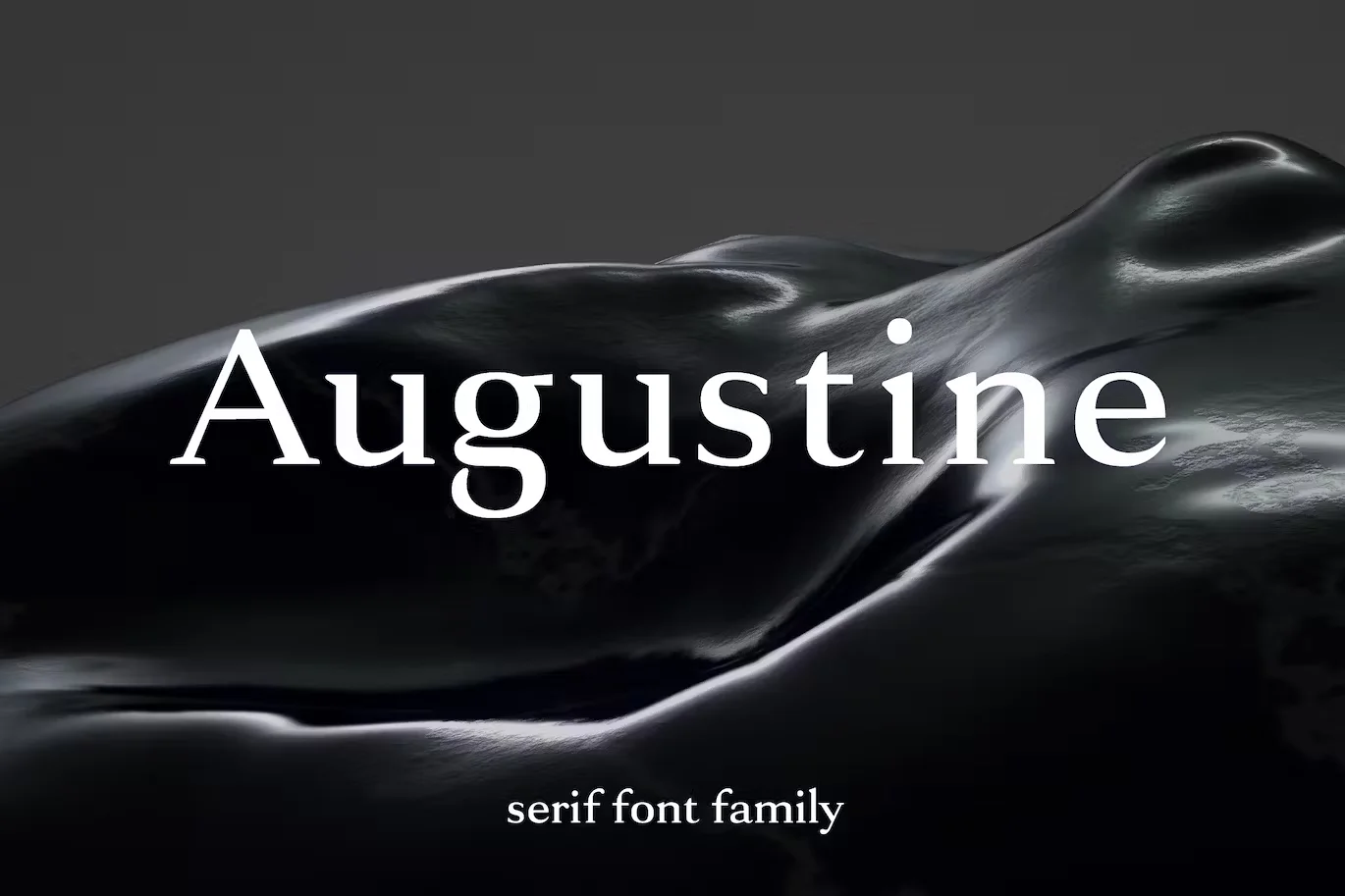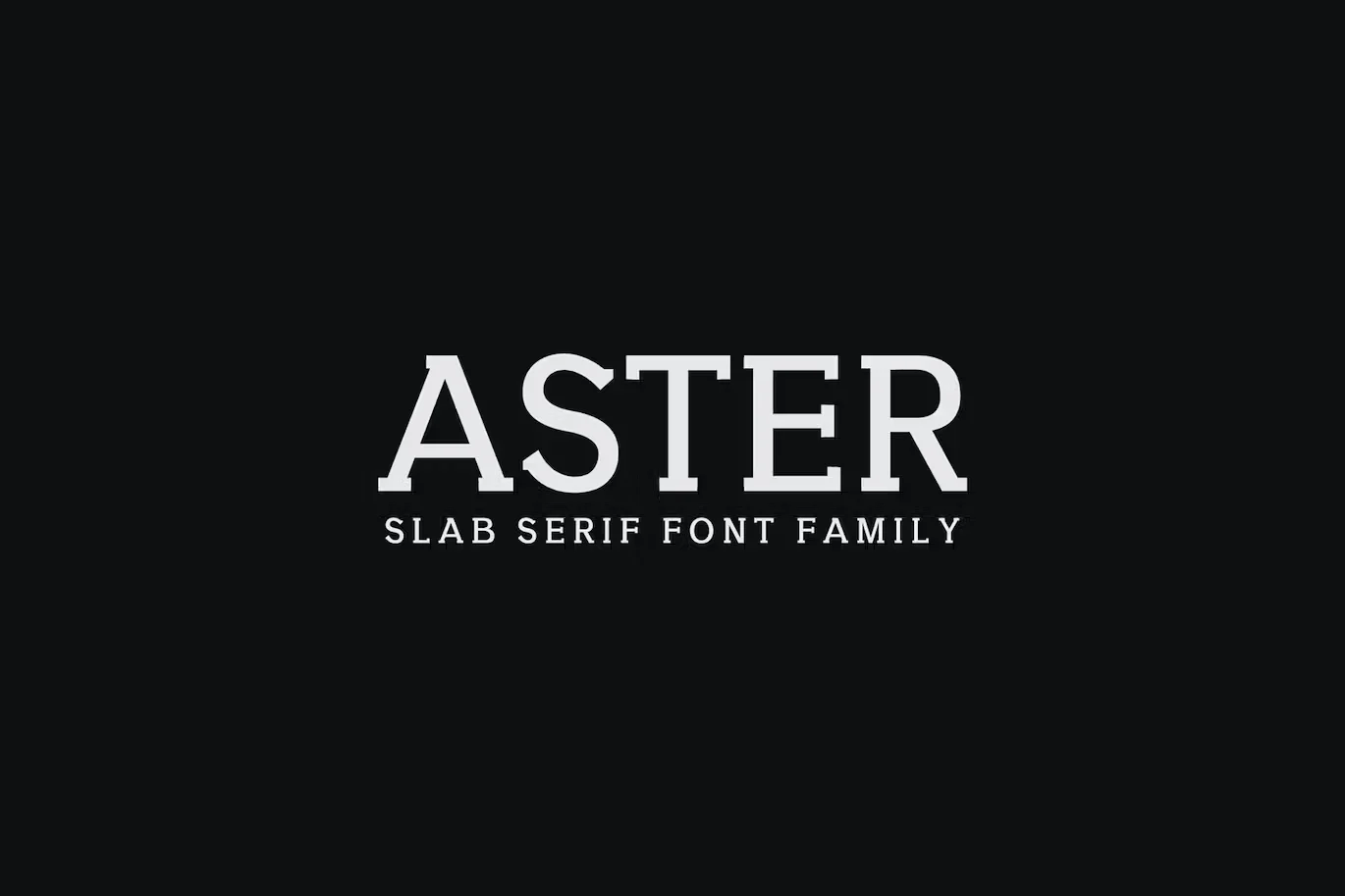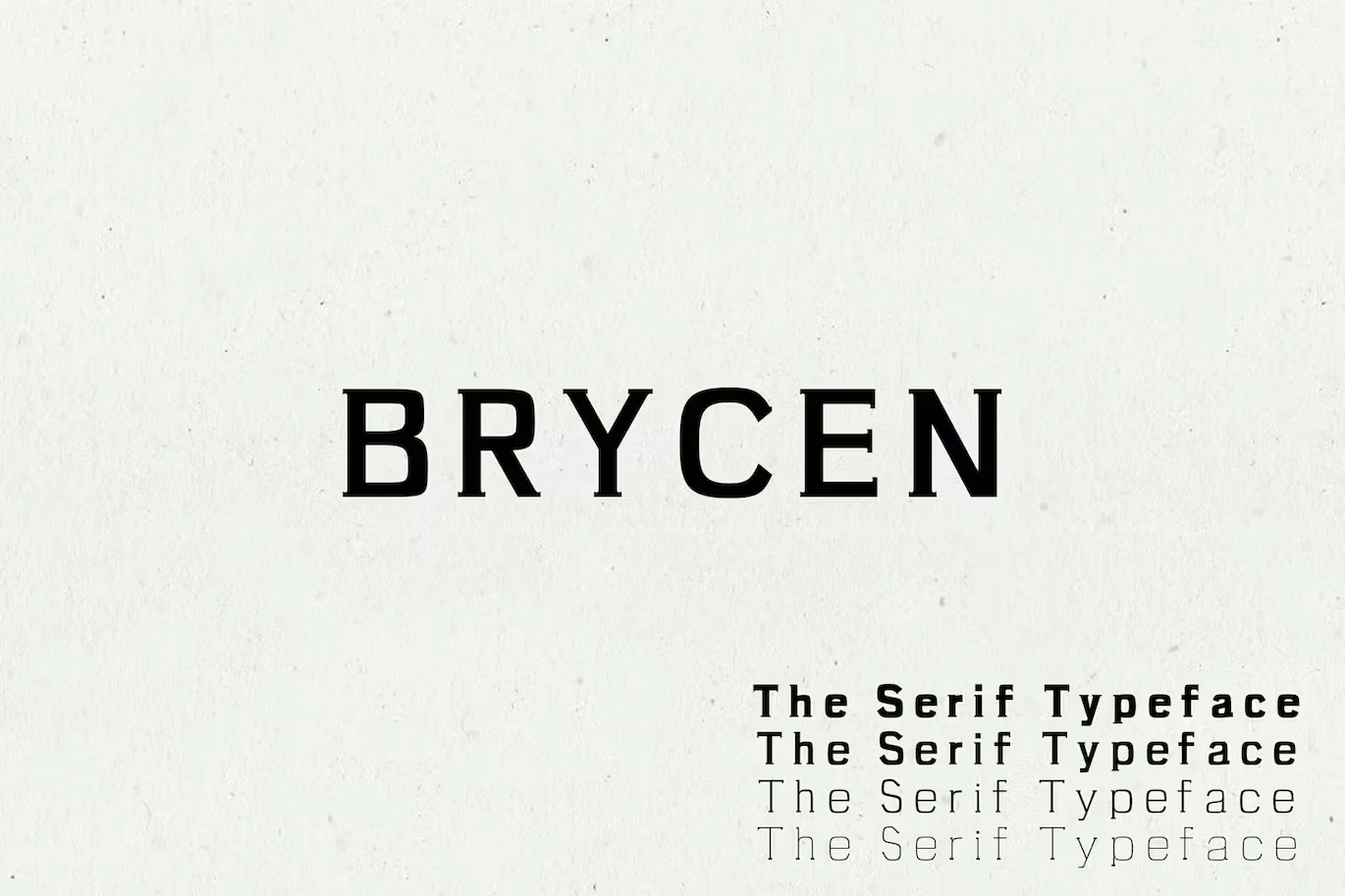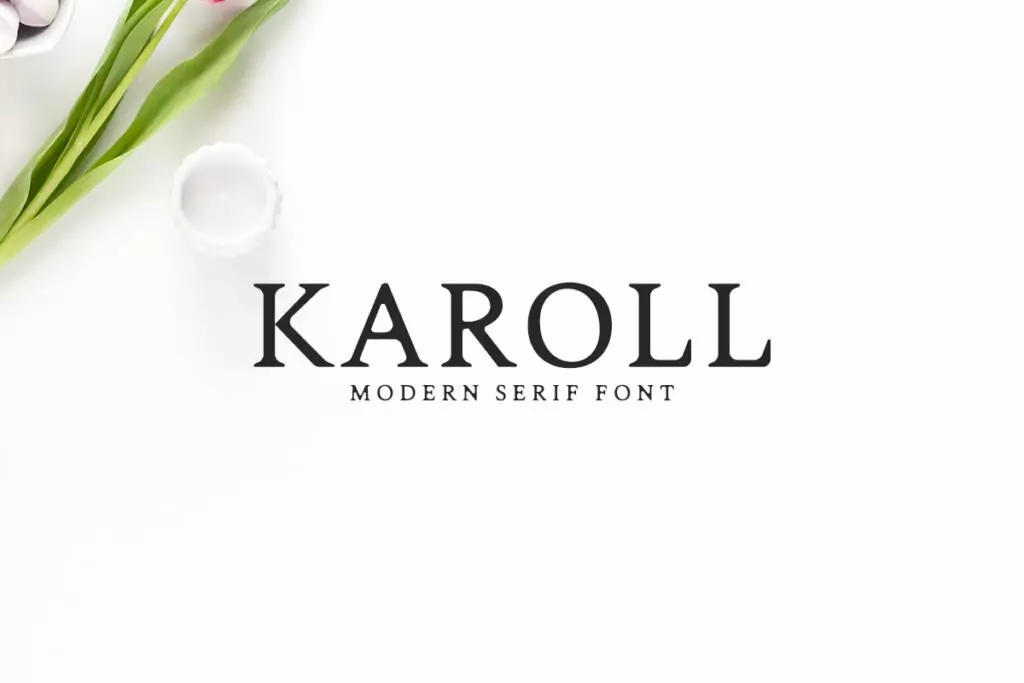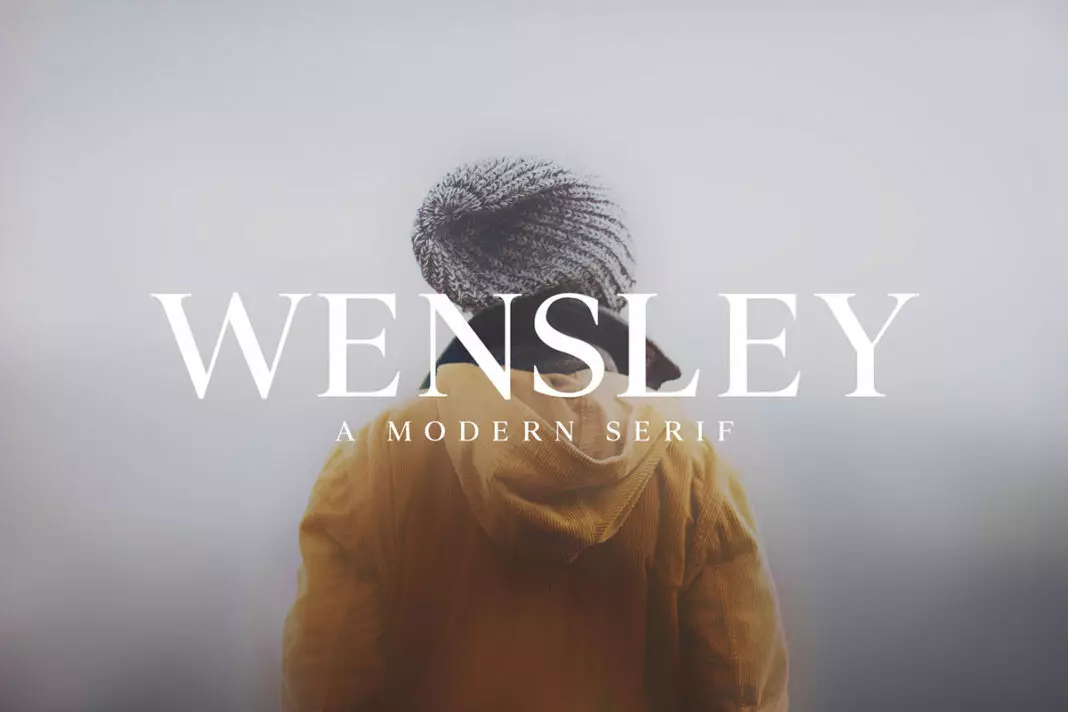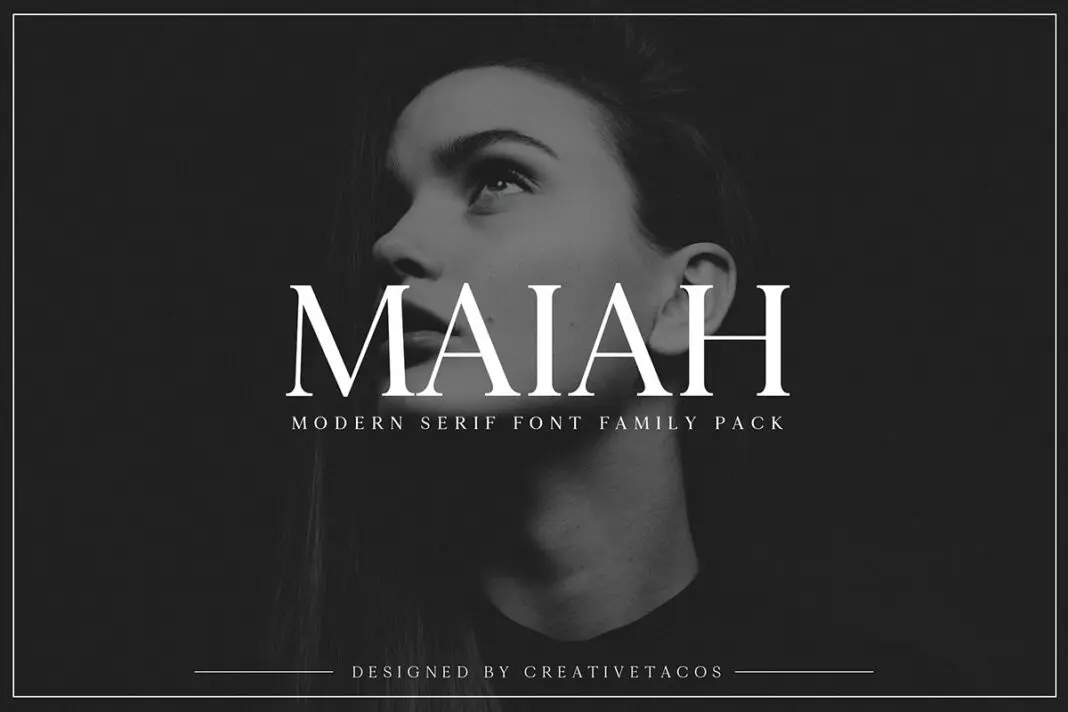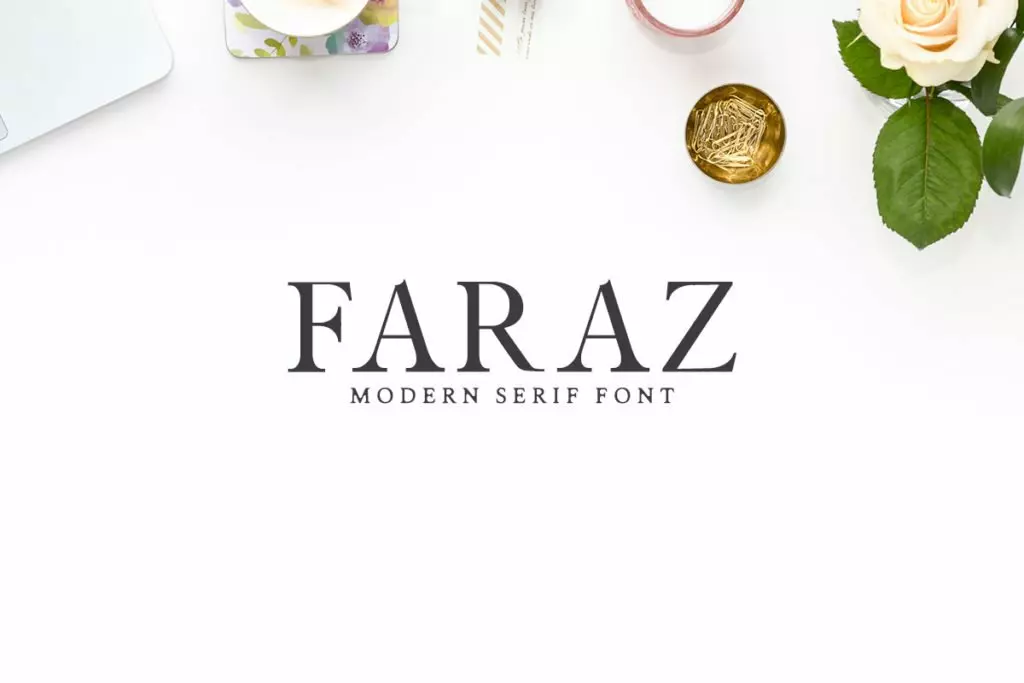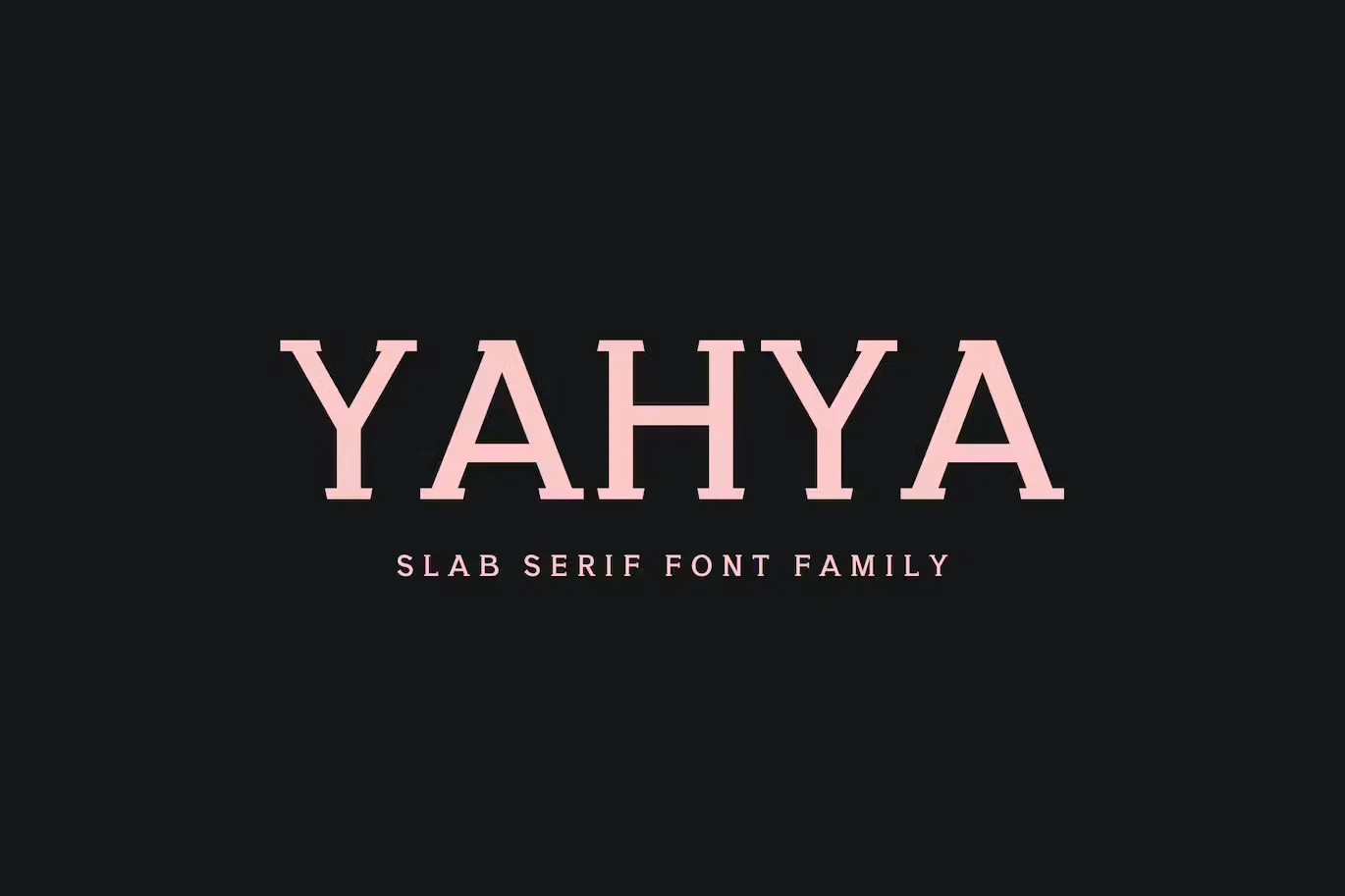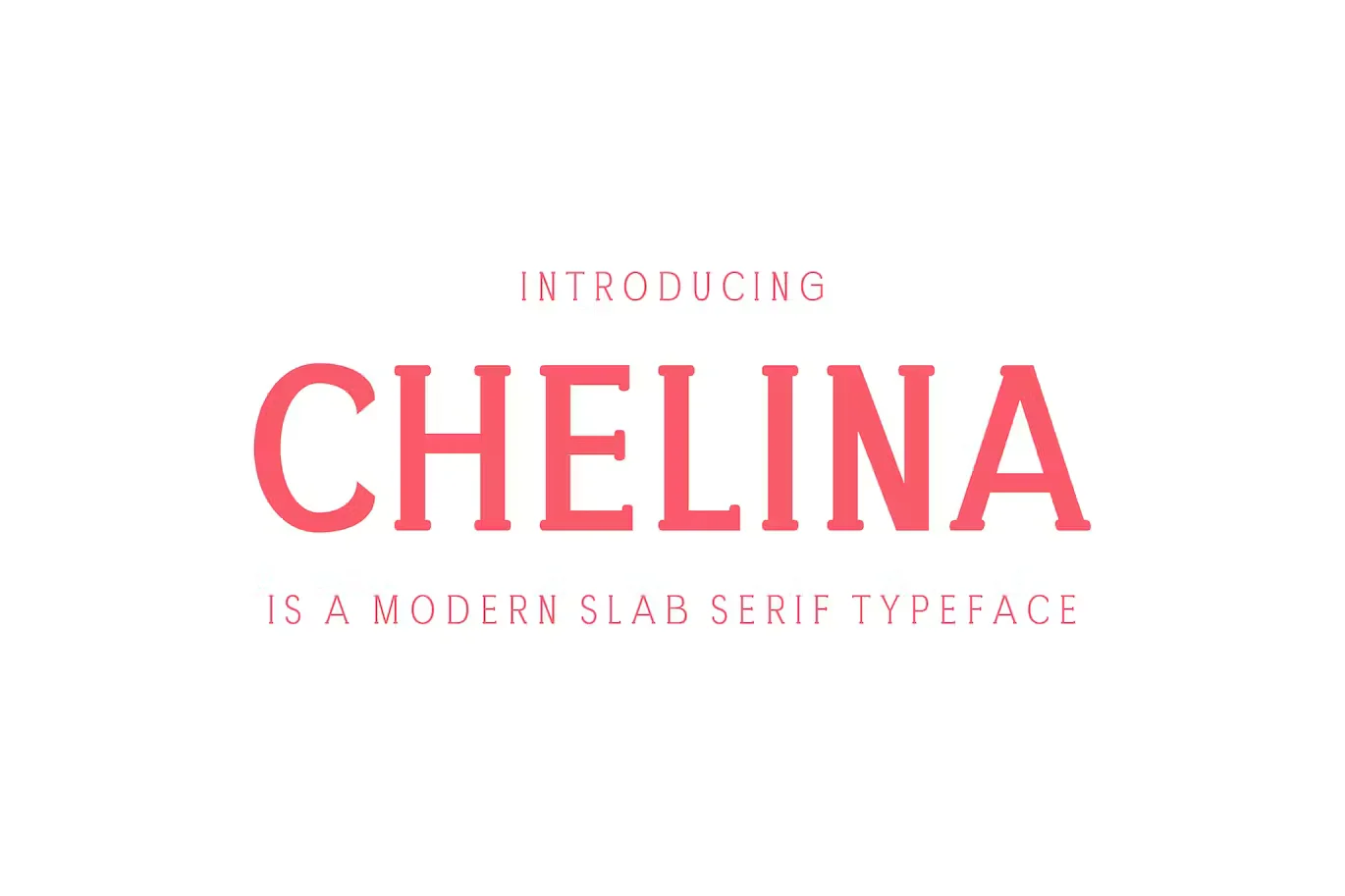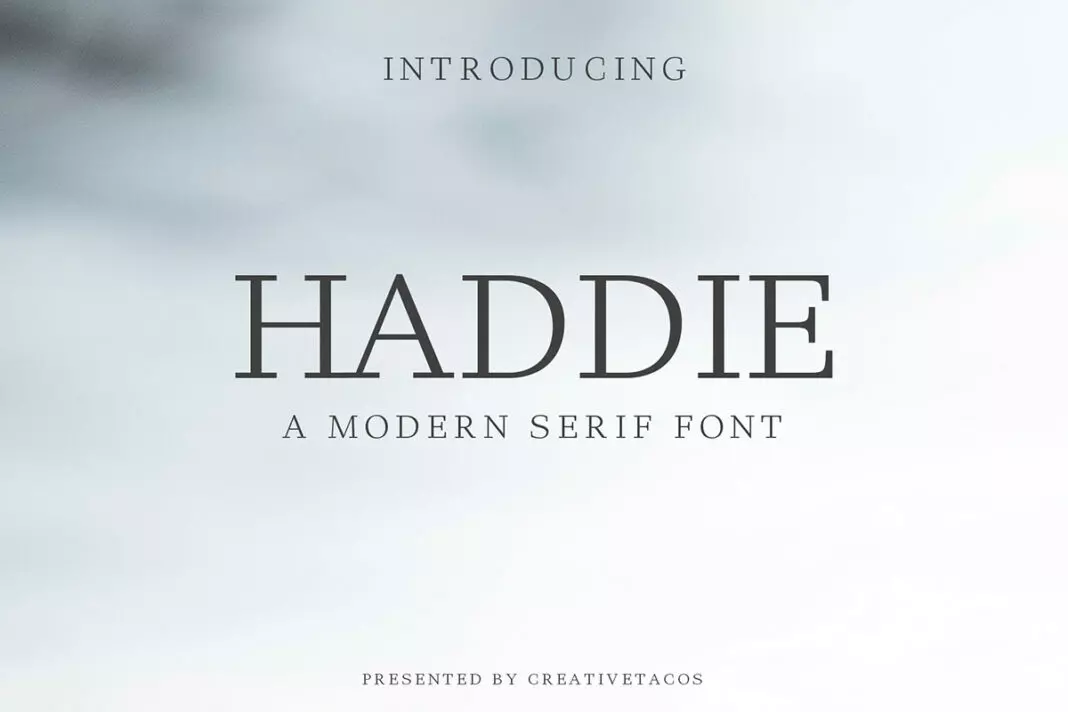
25+ Best Fonts for Books (Cover, Titles, and Body Text)
Choosing the best fonts for book is as crucial as the story itself. The appearance of the book, especially the words on the cover, the title, and the main text, greatly impacts the reader’s experience. The font you pick can significantly influence how your readers perceive your content.
The Art of Font Selection
We’ve compiled a list of the top 25+ fonts that you could use in different sections of your book to aid you in this crucial task. These fonts are unique in style and offer excellent readability. They can enhance the ambiance and overall feel of your narrative.
Fonts: More Than Just Aesthetics
In conclusion, selecting the appropriate font goes beyond simple aesthetics. It’s a potent tool that can breathe life into your story, offering readers a visual delight. These handpicked 25+ fonts aim to provide such an enriching experience, ensuring your book is not just pleasing to read, but also to behold.
Augustine – A Strong Serif Typeface
Augustine is a robust serif typeface that brings an authoritative yet graceful presence to any book. Its strong, defined lines and classic form make it ideal for titles or headers.
Trellis Bold Serif –
Trellis Bold Serif offers a distinct and eye-catching aesthetic. Its sturdy and solid character shapes, combined with slight curves, make it perfect for attention-grabbing headlines or titles.
Eadita Luxury Serif Font Family
The Eadita Luxury Serif Font Family exudes elegance and sophistication. With its refined, streamlined characters and high readability, it’s excellent for body text or ornate headers.
Aster Slab Serif Font Family
The Aster Slab Serif Font Family, one of the best book fonts, uniquely combines modern and vintage elements. With its distinct slab serif style and crisp lines, Aster is ideal for creating captivating book titles and subheaders, making it a top choice among fonts for books.
Brycen Serif Font Family
The Brycen Serif Font Family is among the best book fonts, boasting versatility and a balance of classic and modern features. With its highly readable characters, it stands as a top choice for fonts for books, especially for body text.
Queenlery Serif Font | Free Download
Queenlery is a free serif font that stands out with its whimsical and playful character. It adds a touch of charm and personality to any cover or title.
Karoll Serif Font | Free Download
Karoll, a free downloadable serif font, is a top contender among the best book fonts. Its delicate and elegant style makes it a perfect choice for authors seeking to instill their book with a refined and sophisticated feel using high-quality fonts for books.
Wensley Serif Font | Free Download
Wensley is a free serif font characterized by its sleek and contemporary design. Its well-balanced lines and curves make it excellent for both headings and body text.
Maiah Serif Font | Free Download
Maiah stands out as one of the best book fonts available for free. It’s a serif font that combines a classic yet modern look with high readability, making it an ideal choice for book body text and ensuring a pleasant reading experience for your audience.
Faraz Modern Serif Font – Free Download
Faraz is a standout among free, modern serif fonts for books. It beautifully blends simplicity with elegance. With its clean design that’s easy to read, it’s perfect for long-form text and e-books, truly making it one of the best book fonts available.
Aable A Modern Serif Font Family
The Aable font family offers a sleek, modern serif typeface. With its pleasing aesthetics and high legibility, Aable is suitable for headers, titles, and body text.
Yahya Slab Serif Font Family
The Yahya Slab Serif Font Family delivers a bold, distinctive style to your book. Its robust characters create a strong visual impact, making it ideal for eye-catching book titles or headers.
Chelina Slab Serif Font Family
Chelina Slab Serif Font Family is a versatile and stylish typeface, making it a strong contender among the best book fonts. Its harmonious blend of bold and gentle lines makes it ideal for both headers and body text in books, showcasing its modern appeal.
Adrina Modern Serif Font Family
Adrina Modern Serif Font Family delivers a modern serif typeface with a refreshing twist. Its easy-to-read design and simplicity make it a standout among the best book fonts, particularly for long-form text and digital reading.
Solomon Serif Font Family
Solomon Serif Font Family showcases a mix of classic charm and contemporary design, making it an excellent choice among fonts for books. Its clear characters make it a trustworthy choice for body text in printed books.
Haddie Modern Serif Font | Free Download
Haddie, a free and modern serif font, introduces a distinct, fashionable appeal to your book. It’s among the best book fonts, with its stylized characters being ideal for crafting captivating titles, headers, and covers.